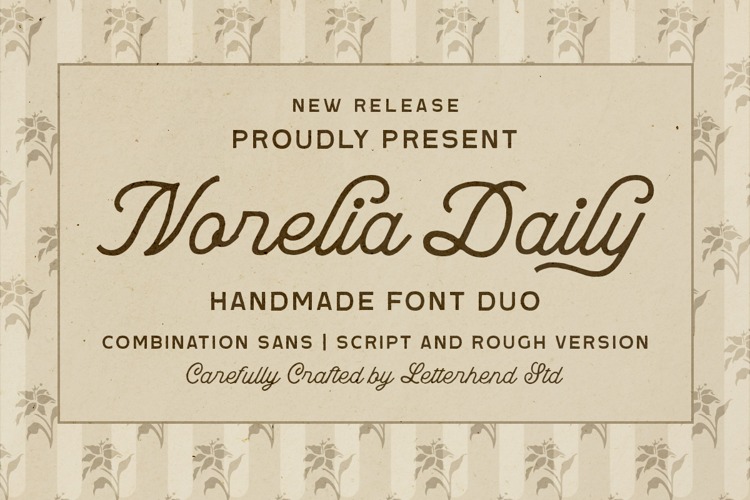
Norelia Daily Handmade Font Duo
DISPLAY, MONOLINE, SANS SERIF, SCRIPTNorelia Daily Handmade Font Duo is a versatile font designed to adapt beautifully across different design styles, offering dependable readability and balance. Norelia Daily feels like a warm note written in a favorite journal